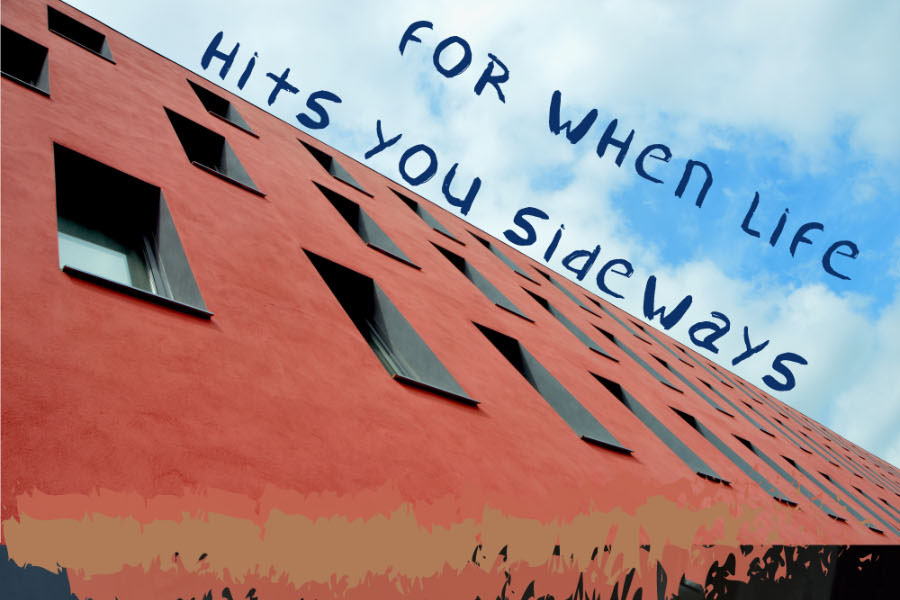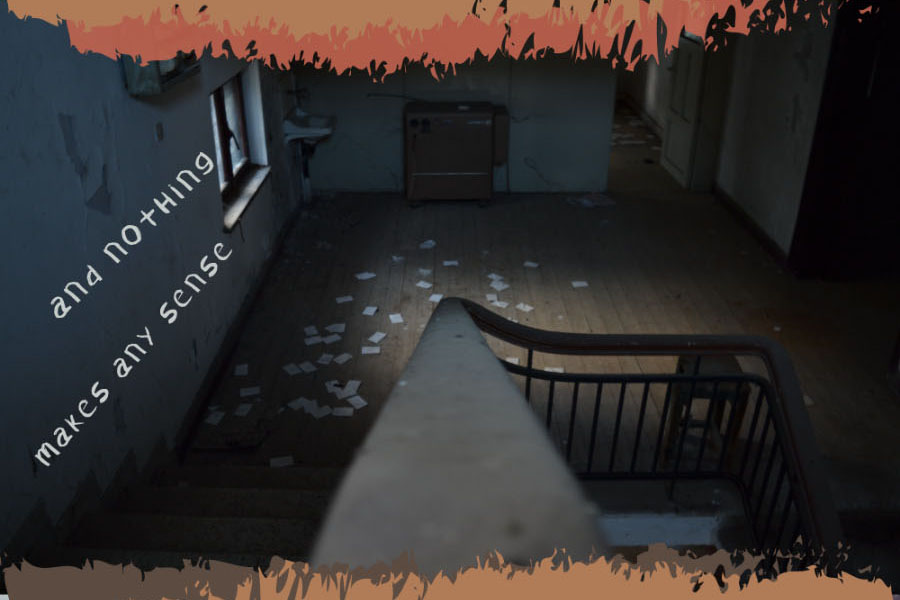
Confused Free Typeface
“Confused” is a perfectly imperfect hand-painted typeface. This brush font is messy and irregular – just as life can be at times.